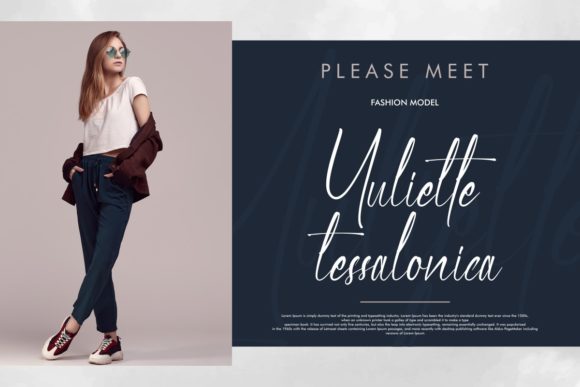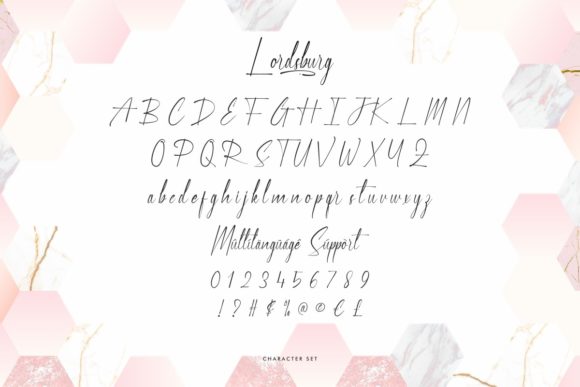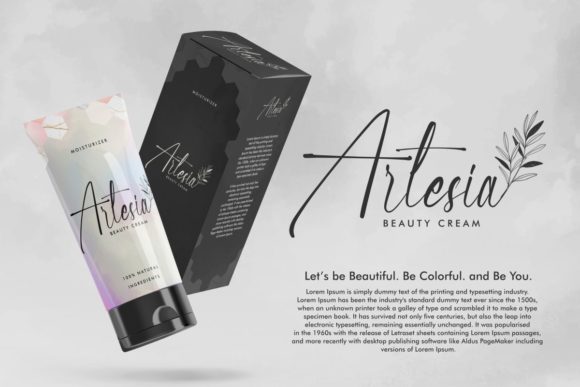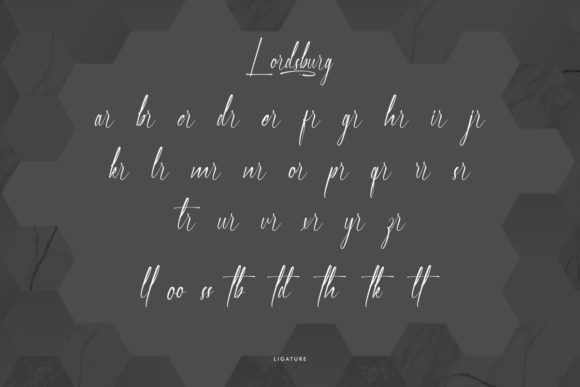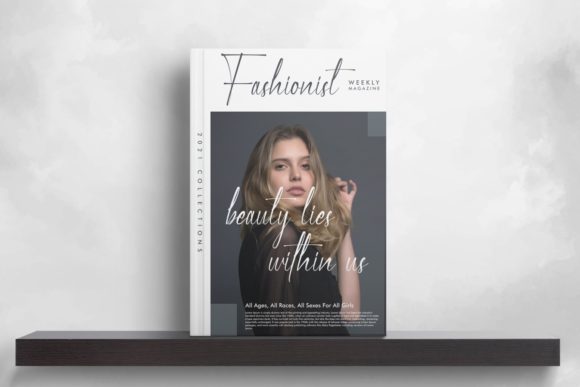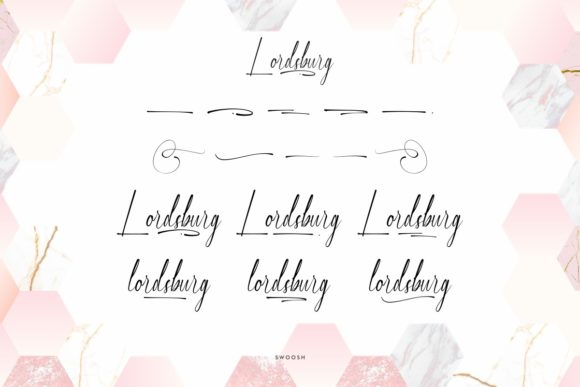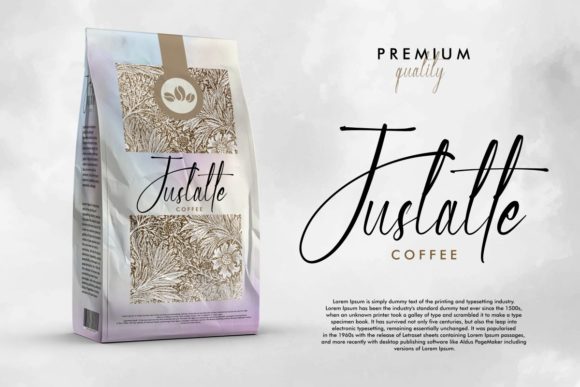
Lordsburg Font
About Lordsburg Font
Lordsburg is a lovely and timeless handwritten font. It is the best choice for creating eye catching logos, branding and quotes. Lordsburg is PUA encoded which means you can access all of the glyphs and swashes with ease!